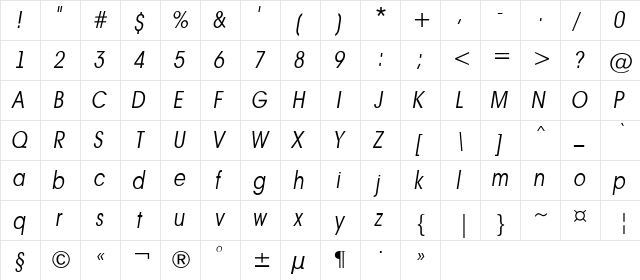
a_AvanteBsNr LightItalic
Design Context for a_AvanteBsNr Typeface
a_AvanteBsNr takes a measured approach to typography — its balanced proportions and neutral character make it a reliable workhorse for both digital and print work. The dynamic lean of this cut emphasises speed and emphasis in any layout. Its slender proportions lend an understated elegance to any composition.